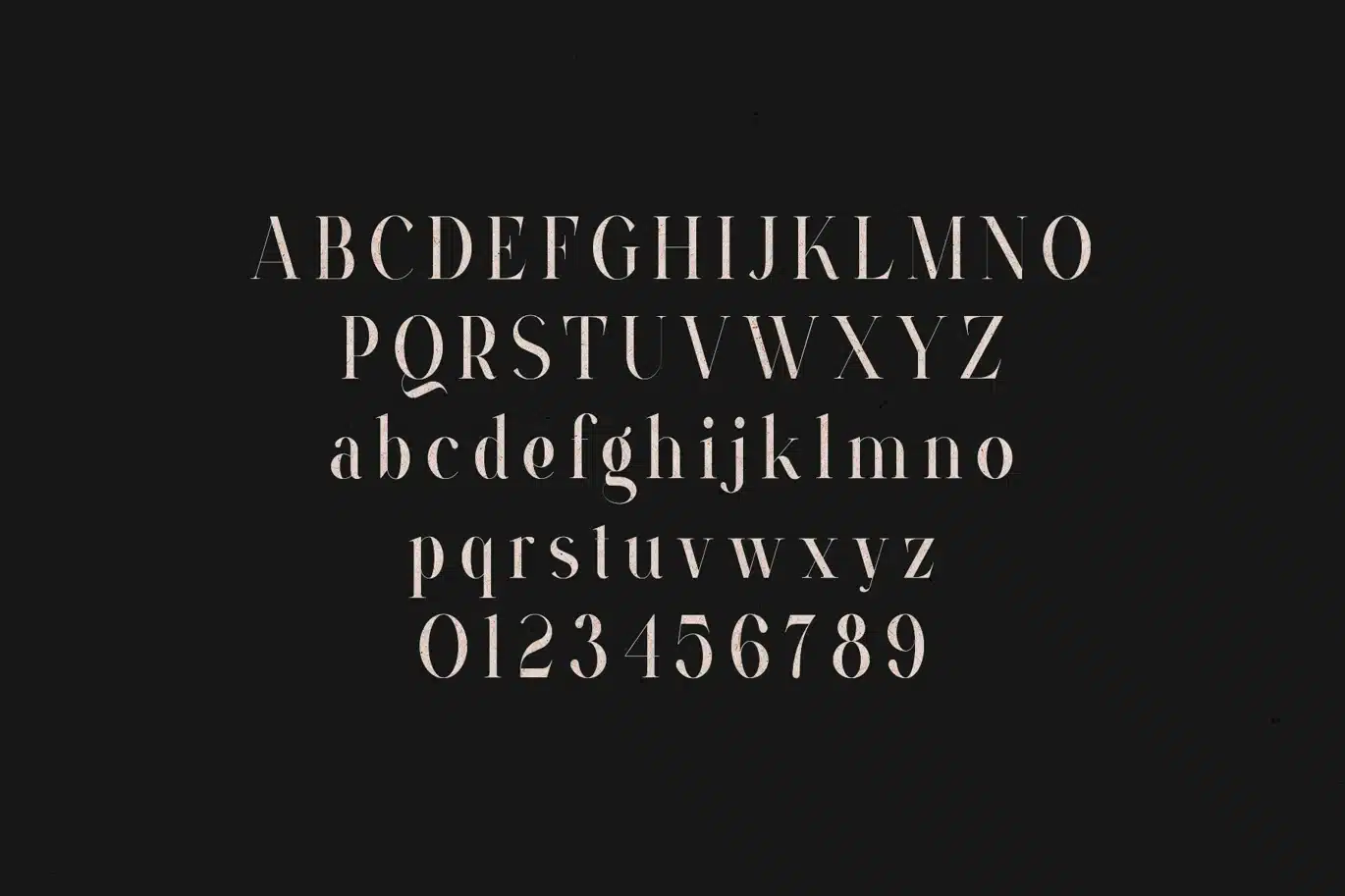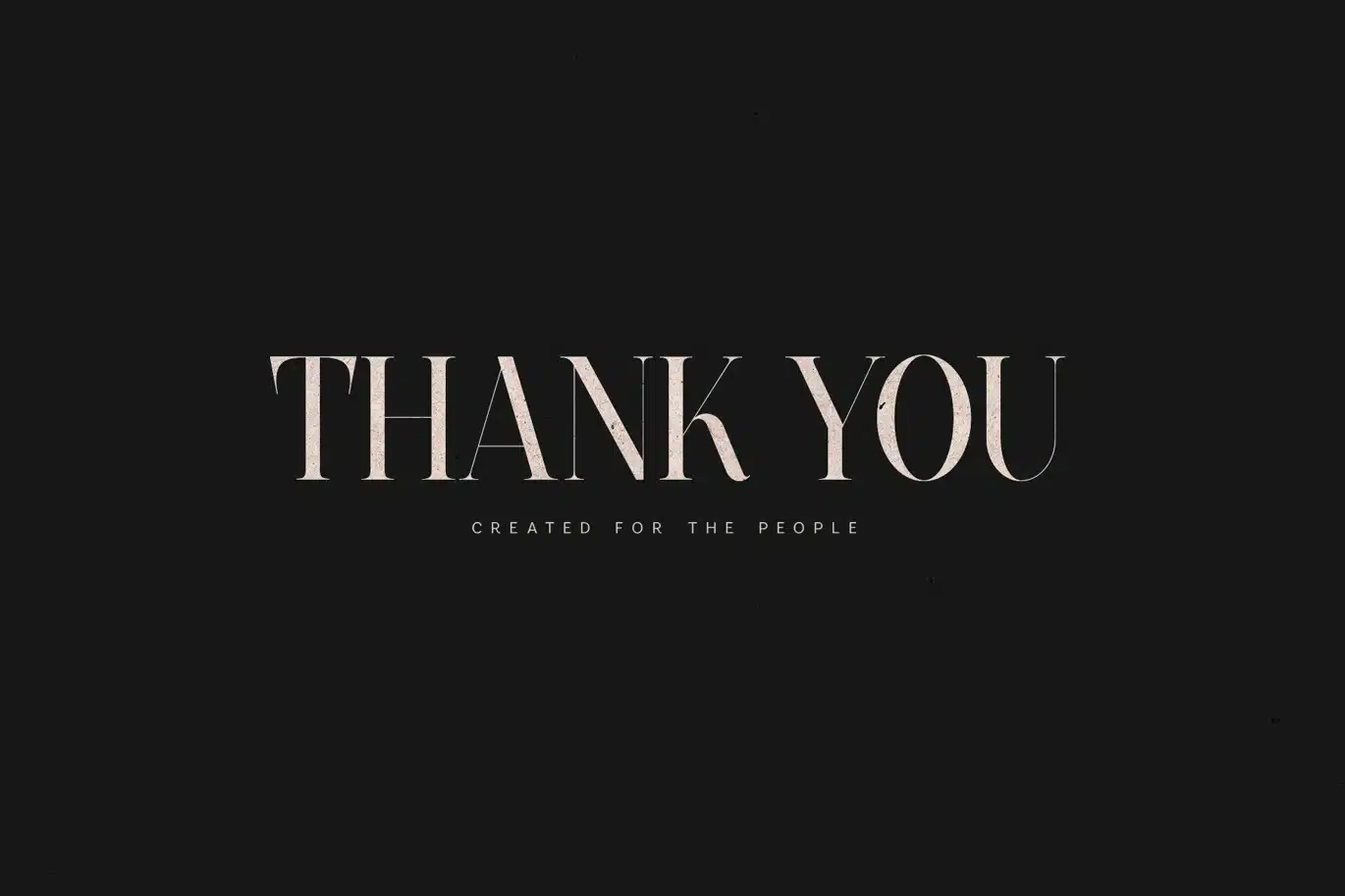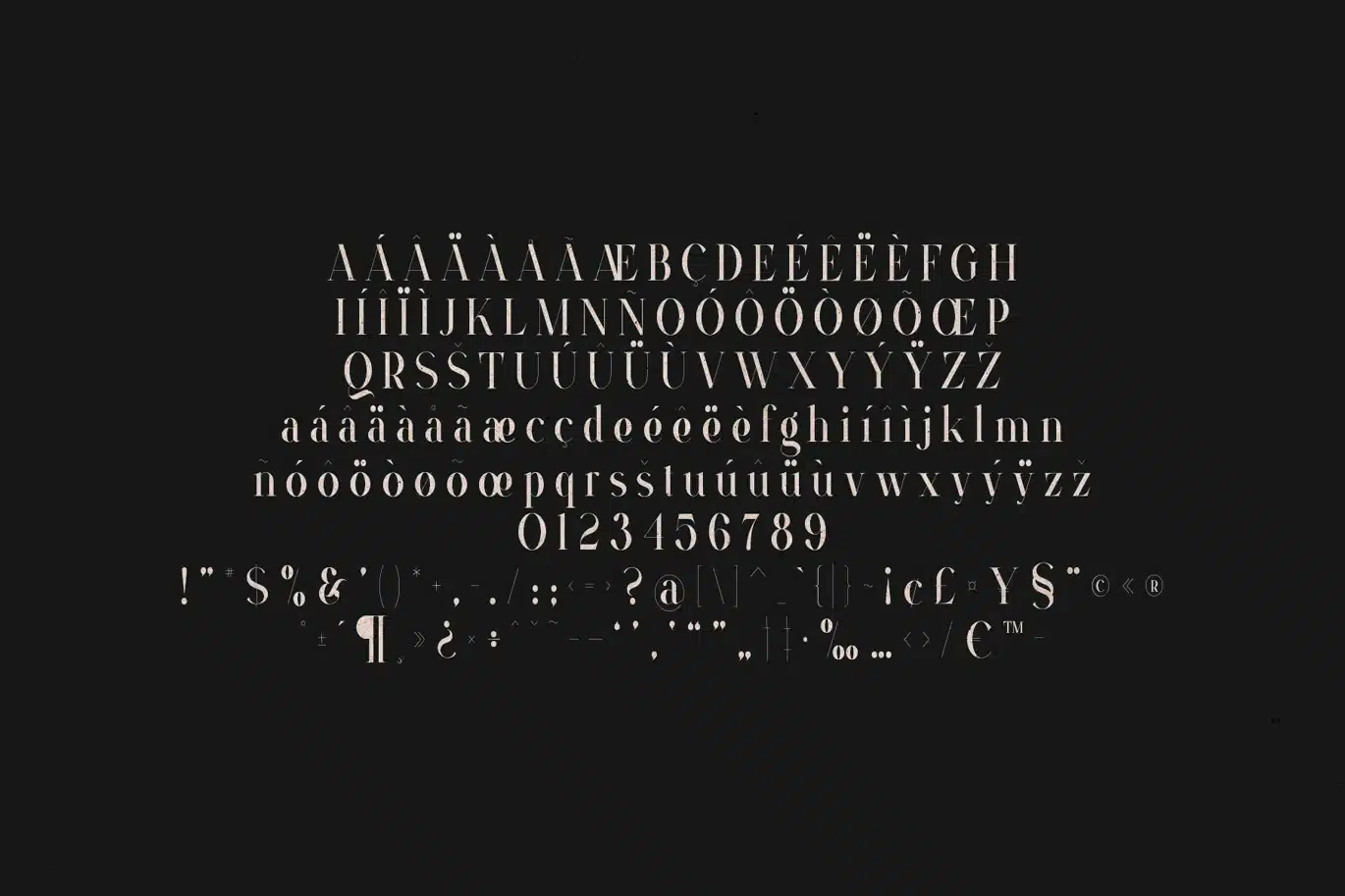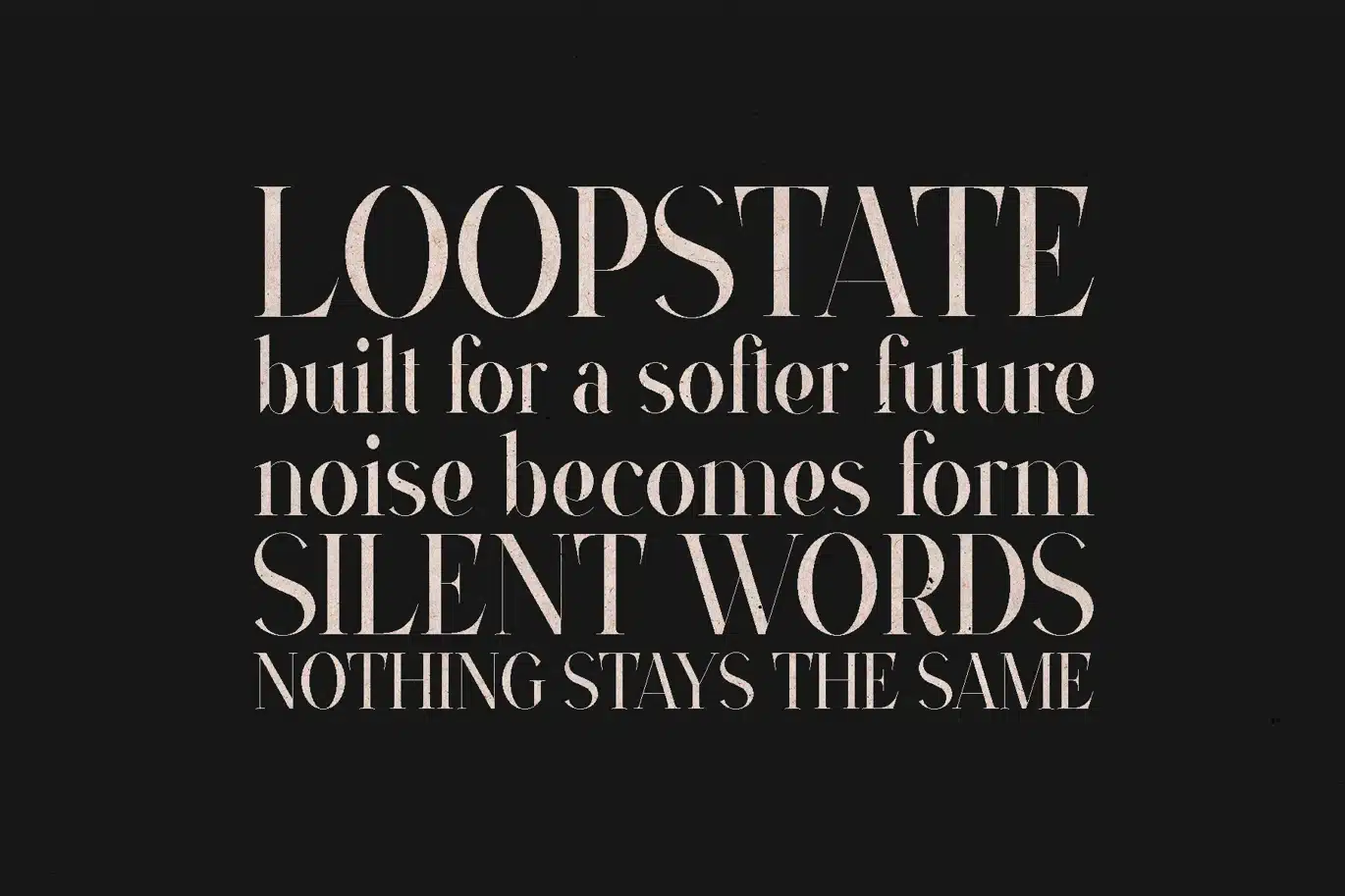
VSOP – Elegant Luxury Serif Font
VSOP is an elegant modern serif typeface designed to bring refined structure and visual sophistication into contemporary typography. The font combines graceful letterforms, high-contrast strokes, and carefully balanced proportions to create a serif style that feels timeless, modern, and visually distinctive.
The design focuses on elegance and clarity. Thin strokes transition smoothly into stronger vertical stems, creating a refined rhythm across words while preserving excellent readability. The characters feature delicate serifs and subtle curves that give the typeface a sophisticated editorial presence.
VSOP was crafted to create strong typographic compositions without overpowering the layout. The uppercase characters introduce confident structure and visual authority, while the lowercase letters add softness and natural flow that help text feel smooth and harmonious.
Because of its refined contrast and balanced forms, the typeface works beautifully in typography that requires elegance and visual impact.
VSOP performs especially well in projects such as:
• editorial typography
• magazine design
• luxury branding
• logo design
• packaging design
• modern brand identities
• typography-driven layouts
• high-end graphic design compositions
The font includes uppercase letters, lowercase letters, numbers, punctuation, symbols, and extended multilingual language support, making it suitable for international design projects and professional creative work.
With its elegant structure, refined contrast, and sophisticated editorial character, VSOP offers a modern serif typeface designed to bring clarity, elegance, and timeless typography into contemporary design.